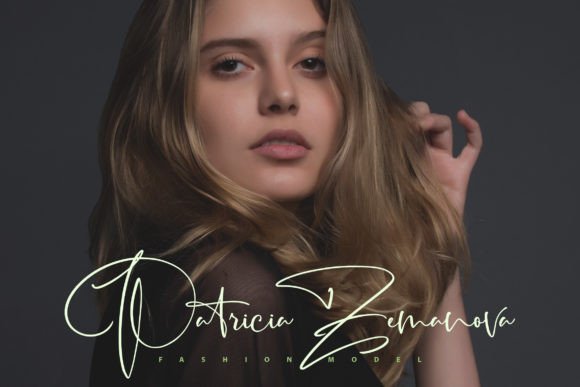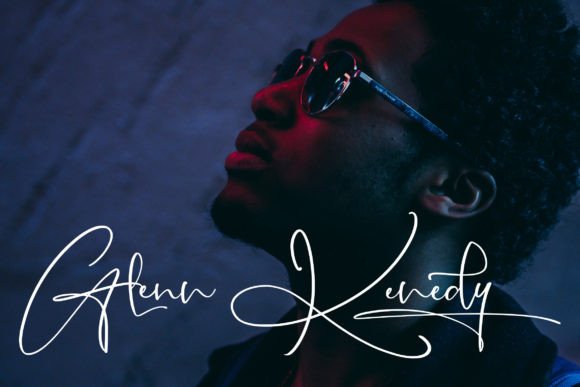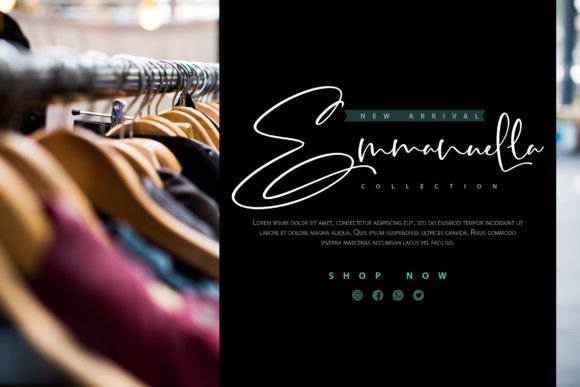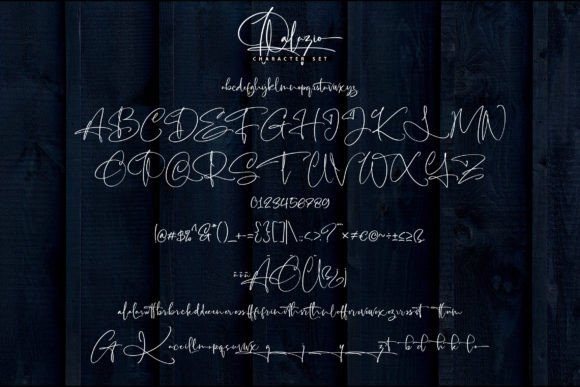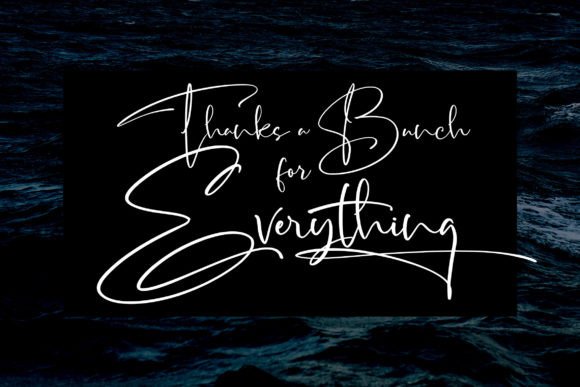
Introduction to Palazio Font
Have you ever found yourself sitting in front of a blank canvas, waiting for the perfect spark to ignite your creativity? For designers, this moment can be both exhilarating and daunting. But what if you had the perfect tool to elevate your creative project and take it to the next level?
Enter the Palazio Font, a stunning script font that will add a touch of luxury and sophistication to any design. With its romantic and sweet characters that dance along the baseline, this font is a must-have for any designer looking to add a high-quality touch to their work.
Whether you’re working on a branding project or creating a beautiful invitation, the Palazio Font is a valuable resource that will make your design stand out. And the best part? It’s PUA encoded, making it easy to access all the amazing glyphs and ligatures you need to create stunning designs.
- Unique, elegant design perfect for creative projects requiring a sophisticated look.
- Includes a wide range of glyphs, making it suitable for various languages and design applications.
- Designed to be highly legible and versatile, making it an excellent choice for various creative projects.
Honest Review: Palazio Font
I recently had the chance to work with the Palazio Font, and I have to say, it’s been a game-changer for my creative project. The high quality of the font is immediately apparent, and I appreciate the transparent background that makes it easy to work with.
The Palazio Font is a fantastic design resource that I’d highly recommend. Here are some of the things that work well:
- Wide range of applications – it’s perfect for both digital and print projects
- Customizable – you can adjust the font to fit your specific needs
While the Palazio Font is overall a great choice, there are a few limitations to be aware of:
- Some users may find the font to be a bit too elegant for certain projects
- It may not be suitable for projects that require a more casual tone
Overall, I’m really impressed with the Palazio Font. It’s a high-quality design resource that I’ll be using for future projects. With its transparent background and customizable options, it’s a great choice for designers looking for a reliable font.
Palazio Font
The Palazio Font is a high-quality design resource ideal for creative projects. It features a clean and elegant style, perfect for various applications.
To get the most out of the Palazio Font, use it on a transparent background to make it stand out. You can also combine it with other design elements to create a unique look.
The Palazio Font is ideal for various creative projects, including:
- Logo designs
- Brochures
Lobster Font is a fun, playful font that’s perfect for creative projects that require a touch of whimsy. It’s ideal for menus, posters, and other design elements that need to stand out. When to use: For projects that require a bold, eye-catching feel. How it compares to Palazio Font: Lobster Font has a more dramatic and attention-grabbing design, making it suitable for large text sizes and statement pieces.